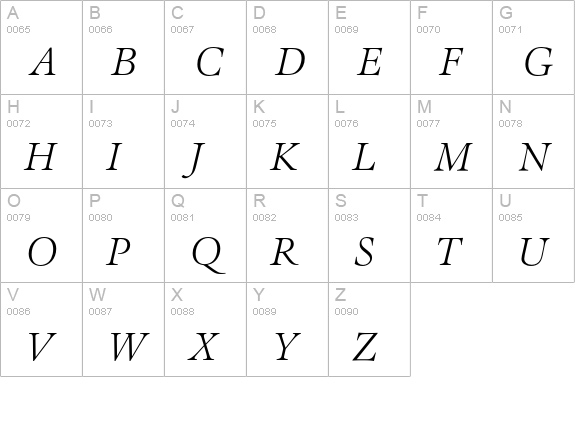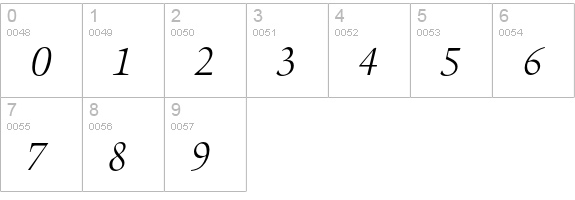
AureliaEF-LightItalic Font Details
Introducing AureliaEF-LightItalic font, a graceful and elegant typeface that exudes sophistication and charm. The delicate curves and subtle angles of this font create a sense of refined beauty, perfect for adding a touch of class to any design project. What sets AureliaEF-LightItalic apart is its versatility - equally suitable for both formal and creative applications. Whether you're designing a wedding invitation, branding materials, or a high-end magazine layout, this font will elevate your work to new levels of elegance. And the best part? AureliaEF-LightItalic is completely free to download at FontsMarket.com. That's right, you can access this exquisite font at no cost, making it an ideal choice for designers on a budget or anyone looking to enhance their projects with a touch of luxury. Don't miss out on the opportunity to elevate your designs with the timeless beauty of AureliaEF-LightItalic. Download it today and see the difference it can make in your creative endeavors.